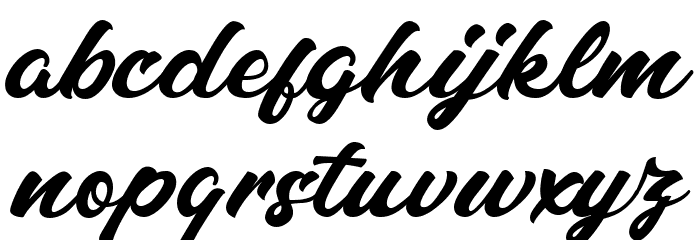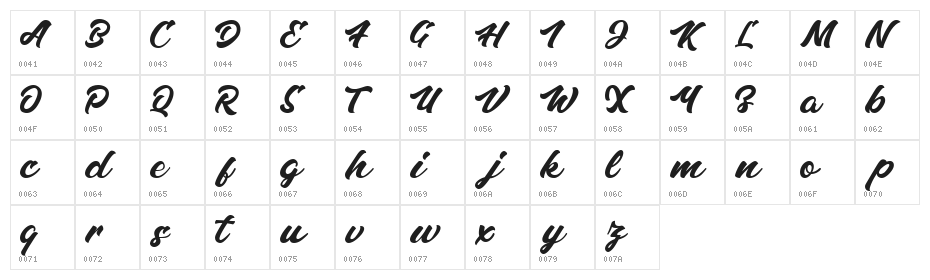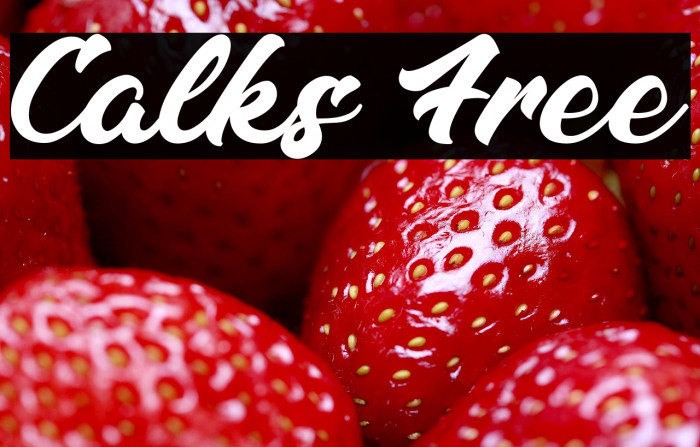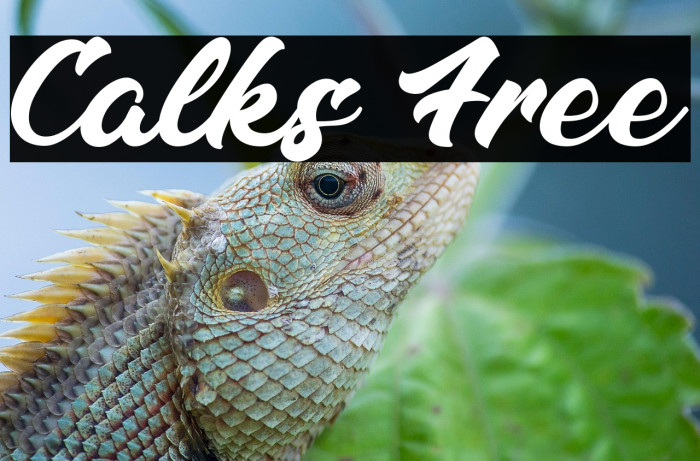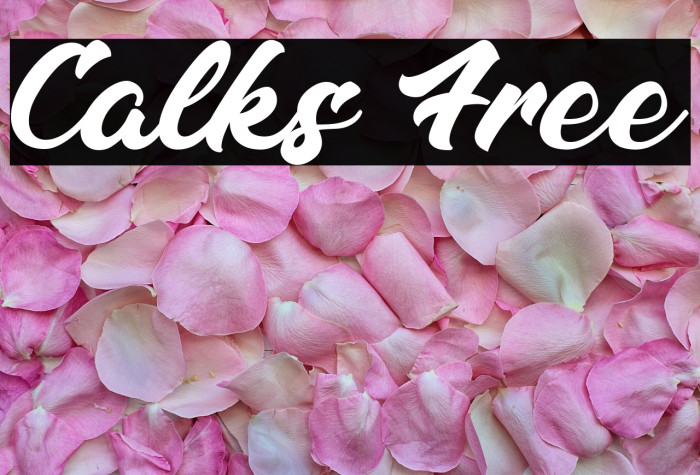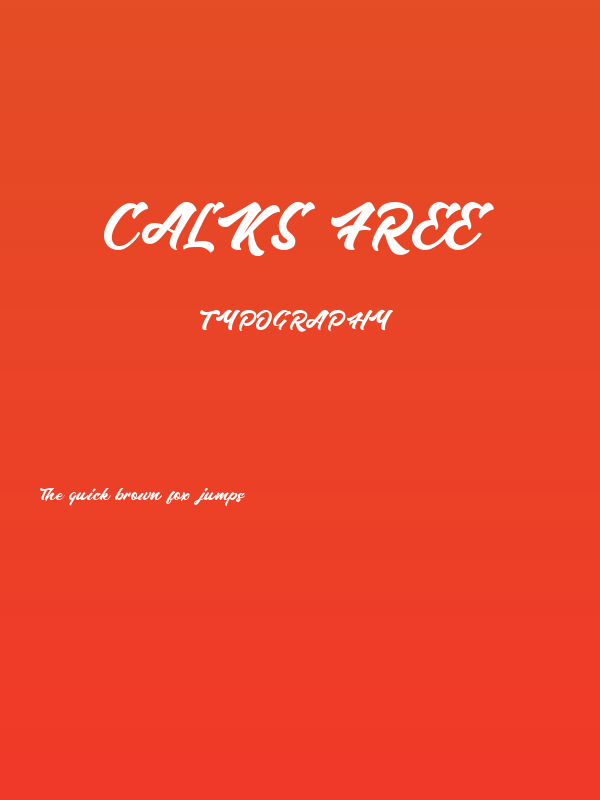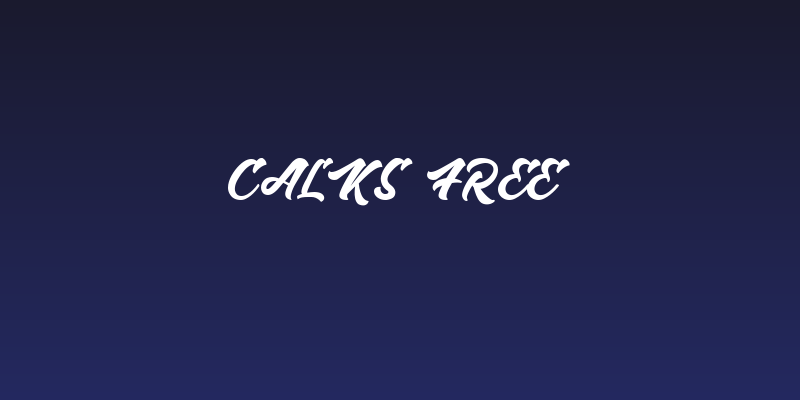
Calks Free Font
This font features a bold and flowing script style, characterized by its elegant and cursive letterforms. The strokes are smooth and connected, giving it a handwritten appearance that is both stylish and sophisticated. The uppercase letters are slightly more ornate, with flourishes that add a touch of flair, while the lowercase letters maintain a consistent fluidity. The numbers and special characters are designed to match the overall aesthetic, ensuring a cohesive look across all text. This font is perfect for projects that require a personal and artistic touch.
A bold, flowing script font with elegant, cursive letterforms.
- Proposed Projects: Ideal for wedding invitations, greeting cards, branding, and logo design.
- Use Case: Logos, Headlines, Invitations